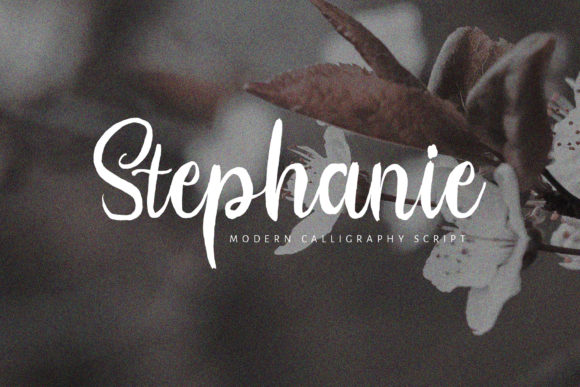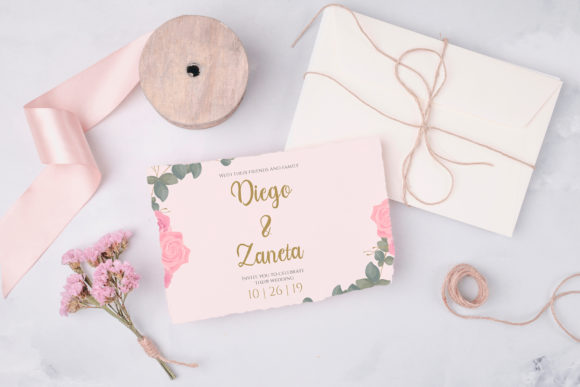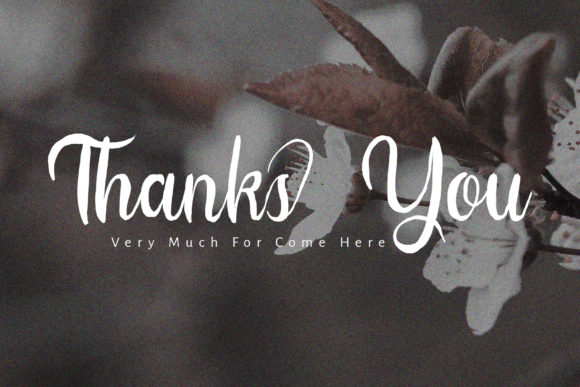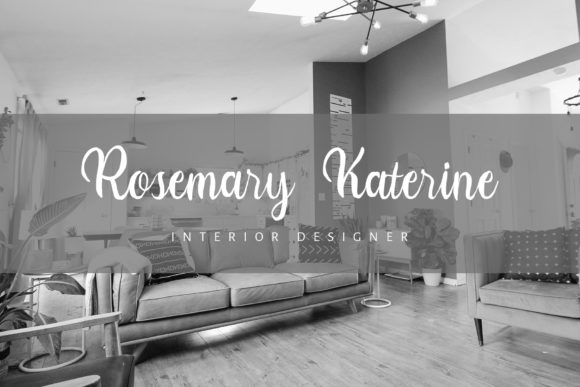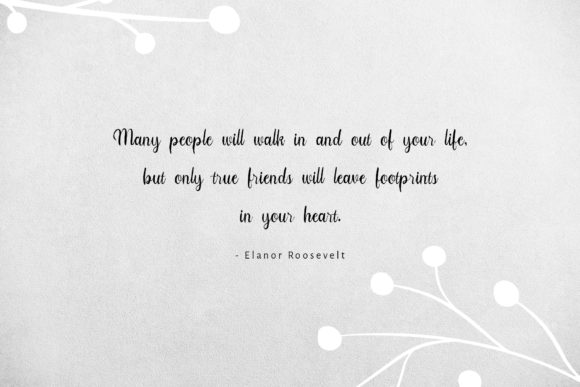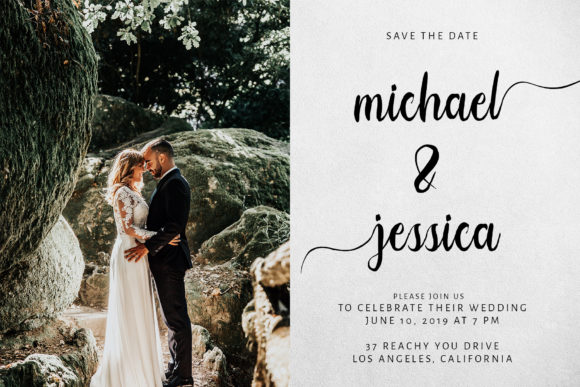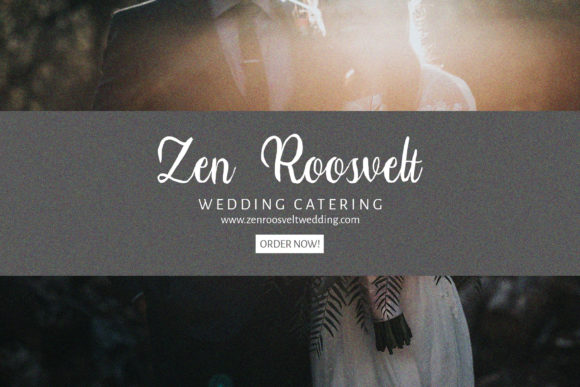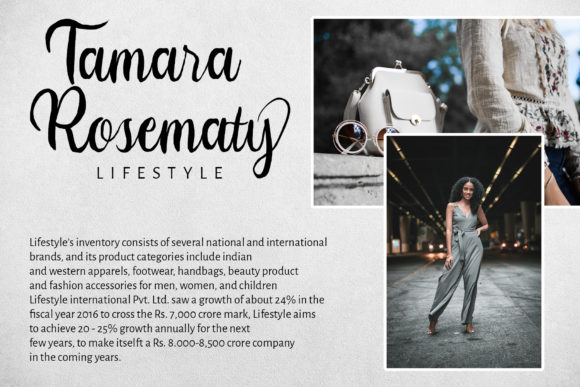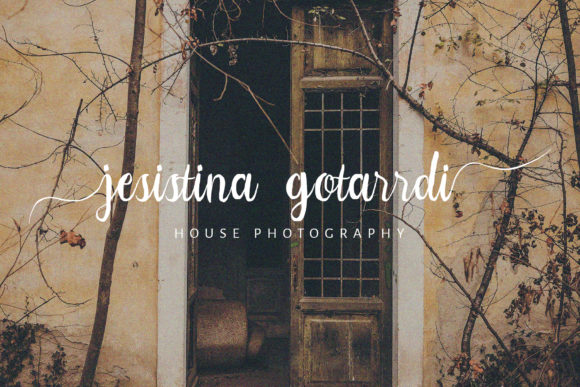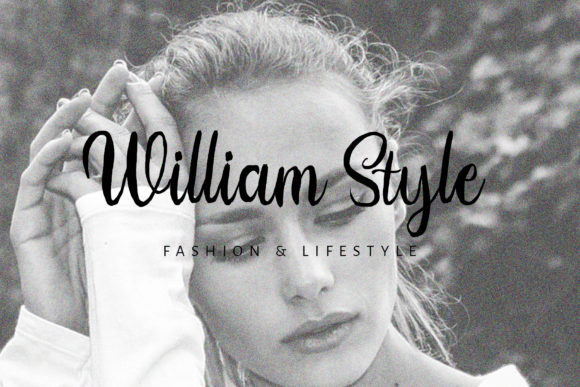
Stephanie Font
About Stephanie Font
Stephanie is a magical script font carefully created with a touch of elegance. This is the perfect font for making original and outstanding designs.